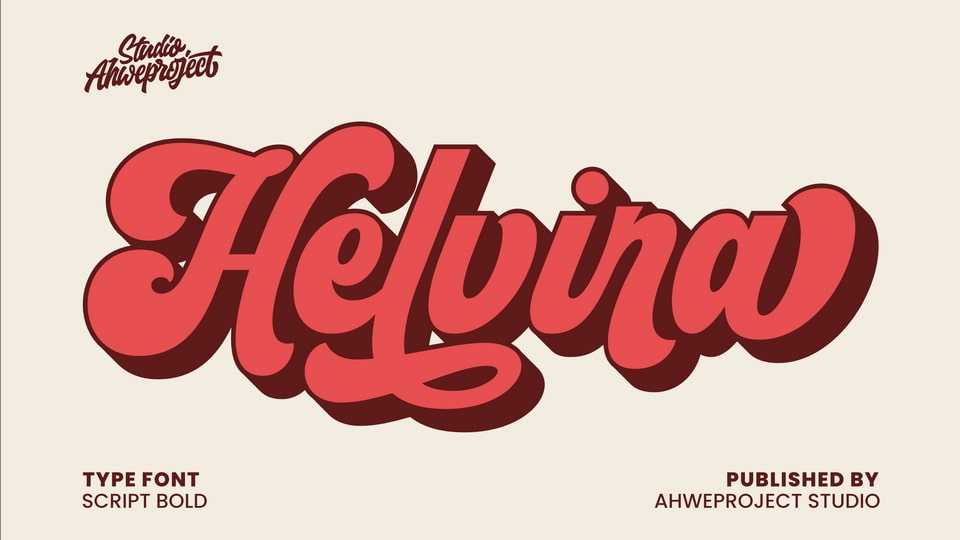
Download Helvira font, a bold script typeface full of charm, confidence, and retro spirit. Its thick strokes, flowing curves, and lively energy make it the perfect choice for eye-catching designs that demand attention.